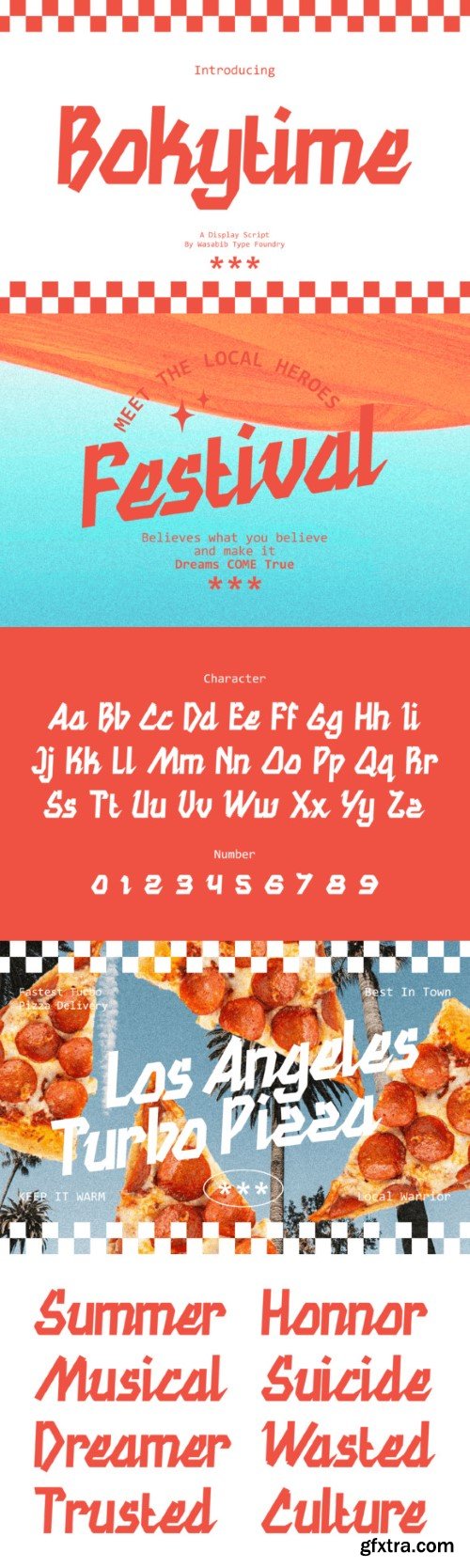
宝凯时间字体
Bokytime is a display script font is a typeface that exudes elegance and sophistication with its flowing, timeless, minimalistic yet impactful sweeping letterforms. It captures attention and adds a touch of artistic flair to any design project.